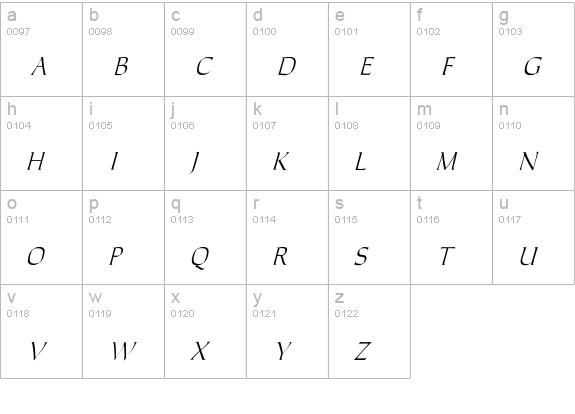
Caracub-Italic is a distinctive, italic variant in the Caracub typeface family \xE2\x80\x94 well suited to design and typography projects.
Caracub-Italic is a sleek and stylish font that exudes elegance and sophistication. With its unique italicized design, this font is perfect for adding a touch of class to any project. The smooth curves and fluid lines of Caracub-Italic make it a versatile choice for a wide range of design applications, from branding to editorial design. Best of all, Caracub-Italic is available for free download at FontsMarket.com. Whether you're a professional designer looking to add a new font to your collection or a hobbyist looking to spruce up your personal projects, Caracub-Italic is the perfect choice. Don't miss out on this opportunity to elevate your designs with this gorgeous font - download Caracub-Italic today and let your creativity soar!